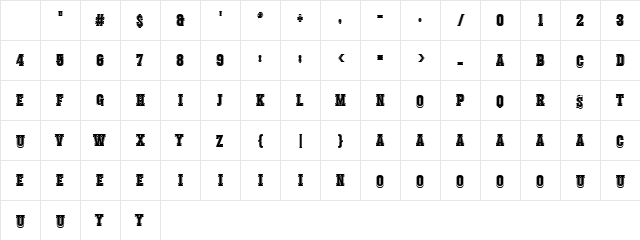
Complete Varsity Signature Outline Regular glyph index. Displaying only characters natively supported by Varsity Signature Outline Regular font.
Varsity Signature Outline brings high-energy athletic personality to the page - its confident, muscular forms are built for impact.
Pro Tip: Use Varsity Signature Outline in all-caps headlines where its athletic energy can fully express itself. Pair with a solid, simple sans for supporting text.